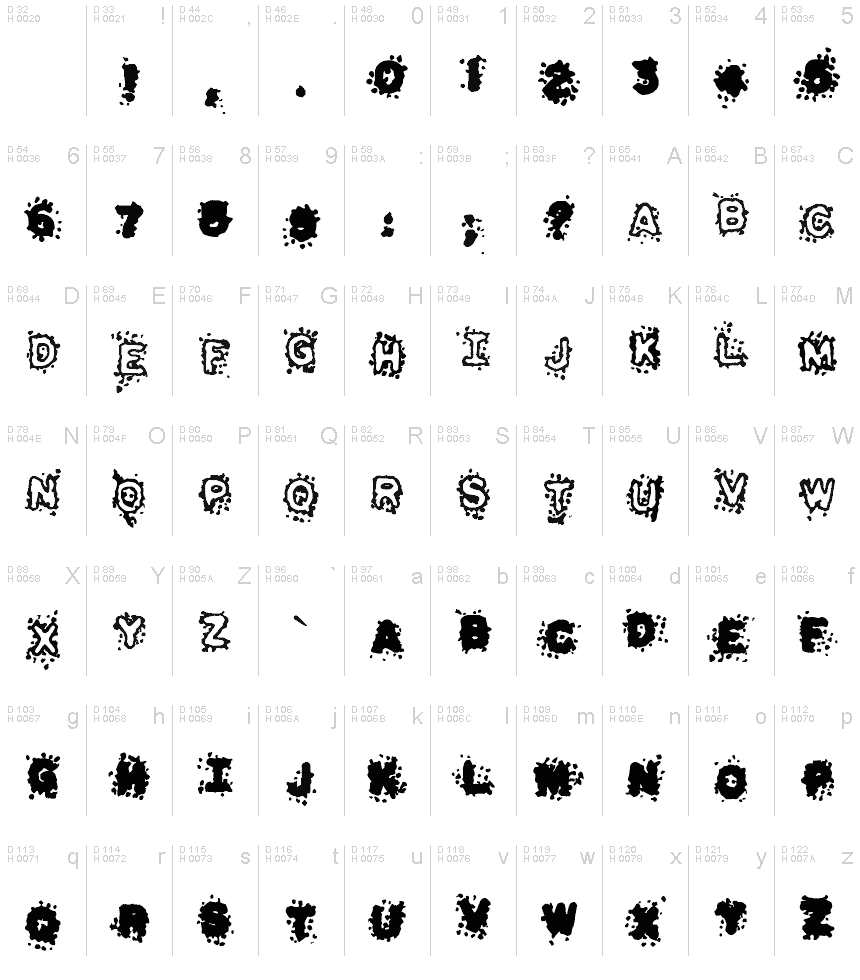
Pulpatone
Pulpatone, a captivating display font crafted by Imagex, exudes a delightfully distorted and bold aesthetic. Its irregular, splattered forms evoke a raw, grunge-inspired sensibility, making it an ideal choice for eye-catching headlines, edgy branding, and striking typographic treatments.
The font's unorthodox character shapes and uneven textures lend an energetic, almost chaotic quality, perfect for conveying a sense of dynamism and unconventionality. Pulpatone's versatility extends to various design applications, from concert posters and album covers to product packaging and editorial layouts, where its distinctive style can make a bold, memorable impact.